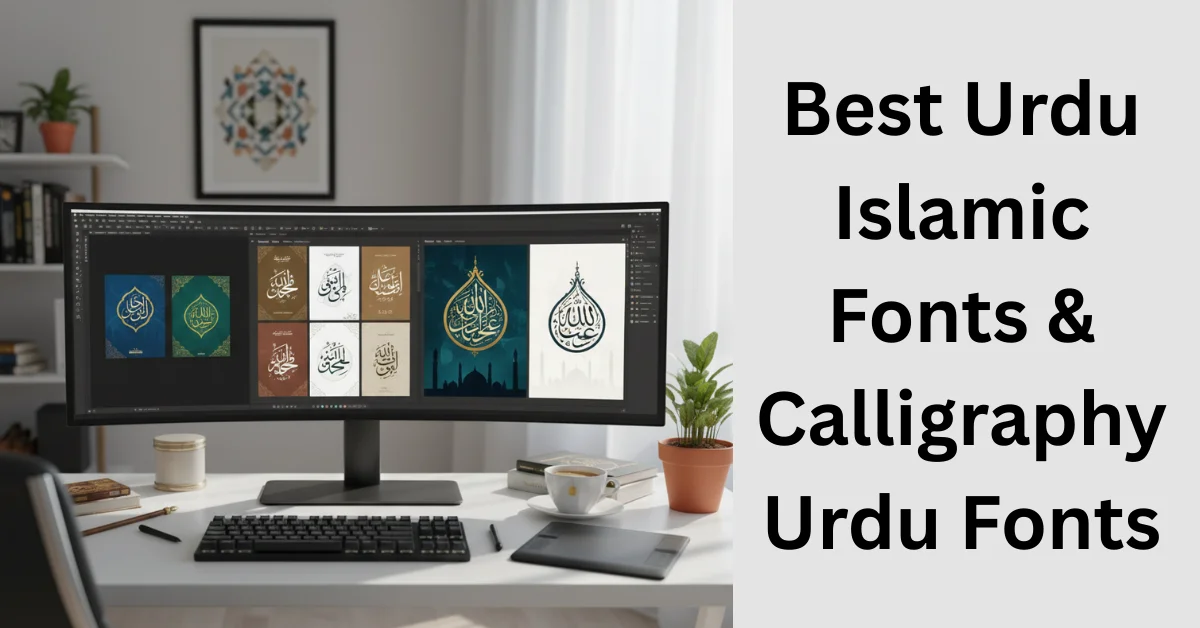
Best Urdu Islamic Fonts & Calligraphy Urdu Fonts – Guide for Designers
Urdu Fonts is a trusted platform where designers, calligraphers, and Islamic content creators can find the best urdu islamic fonts and calligraphy urdu fonts for professional and creative use. In this complete guide, we will explore the latest, most beautiful, and highly readable Urdu fonts that are perfect for Islamic design, Quranic verses, mosques artwork, wedding cards, and digital media. If you are searching for expert-recommended fonts with a traditional touch and modern clarity, this article is written specially for you.
What Are Urdu Islamic Font and Why Are They Important?
Urdu Islamic font are specially designed typefaces that reflect Islamic culture, Arabic influence, and classical calligraphy styles while supporting the Urdu language. These fonts are widely used in religious books, Islamic posters, Quran translations, and spiritual designs.
These fonts are important because they maintain the beauty, respect, and readability of Islamic text. In Pakistan and other Urdu-speaking regions, calligraphy urdu fonts are essential for mosques banners, madrasa books, and Islamic social media posts. A good Islamic font enhances visual appeal and helps readers connect emotionally with the message.
How Do Calligraphy Urdu Fonts Improve Islamic Design?
Calligraphy urdu font add elegance and spiritual depth to Islamic designs. Unlike simple text fonts, calligraphy styles bring smooth curves, balanced strokes, and artistic flow that suit religious content perfectly.
Many designers prefer calligraphy urdu font for Quranic ayahs, Hadith quotes, and Islamic logos. These fonts help maintain tradition while still looking professional on modern platforms like websites, YouTube thumbnails, and mobile apps. Using the right calligraphy font can instantly increase trust and engagement.
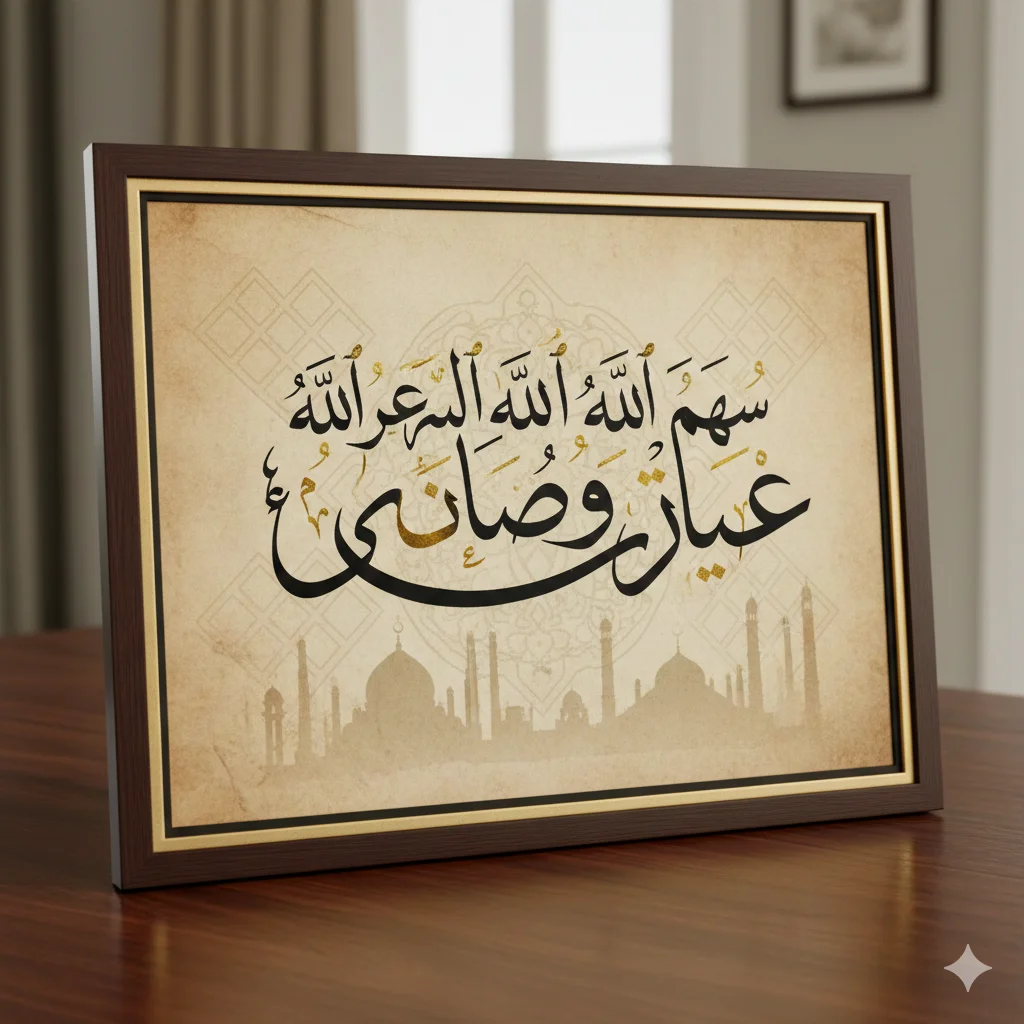
Best Urdu Islamic Fonts for Calligraphy and Religious Content
Choosing the best font depends on your project type. Below is a table of expert-choice Urdu Islamic fonts commonly used in Pakistan and worldwide.
| Font Name | Style | Best Use |
|---|---|---|
| Jameel Noori Nastaleeq | Classic | Quran, Books |
| Alvi Nastaleeq | Traditional | Islamic Articles |
| Mehr Nastaleeq | Elegant | Calligraphy Art |
| Nafees Nastaleeq | Clean | Digital Media |
| Pak Nastaleeq | Balanced | Print & Web |
Which Urdu Islamic Fonts Are Best for Quran and Hadith Text?
For Quran and Hadith, clarity is more important than decoration. Fonts should be easy to read while still maintaining Islamic aesthetics.
Fonts like Jameel Noori Nastaleeq and Nafees Nastaleeq are highly recommended. They support proper ligatures and spacing, making long paragraphs comfortable for readers. In Pakistan, these fonts are often used in printed Quran translations and religious books.
Latest Calligraphy Urdu Fonts for Modern Designers
Modern designers look for fonts that work well on screens while keeping a traditional feel. The latest calligraphy urdu font4 are optimised for digital use without losing beauty.
These fonts are ideal for:
- Islamic YouTube thumbnails
- Social media posts
- Website headers
- Mobile applications
Many new fonts now support Unicode, making them compatible with Windows, Android, and web platforms. Urdu Fonts regularly updates its library with the latest releases.
How to Choose the Best Urdu Islamic Font for Your Project?
Choosing the right font depends on your purpose. Here are some expert tips to help you decide:
- Identify whether your project is print or digital.
- Choose readable fonts for long Islamic text.
- Use decorative calligraphy fonts for titles only.
- Test font size and spacing before final use.
- Ensure the font supports full Urdu characters.
By following these steps, you can select urdu islamic fonts that enhance both design and readability.